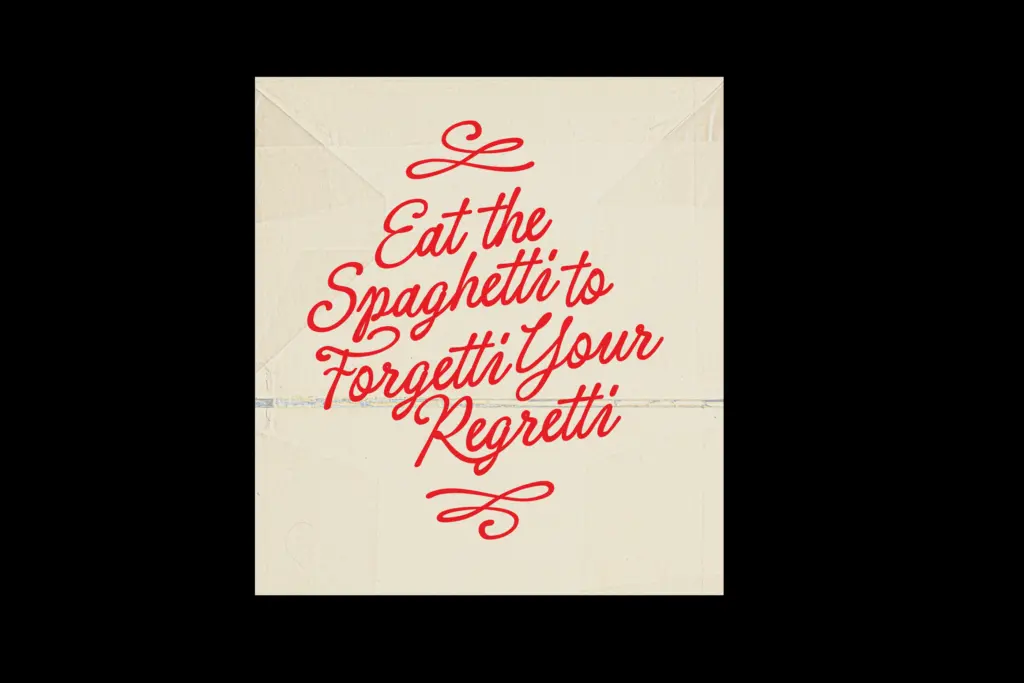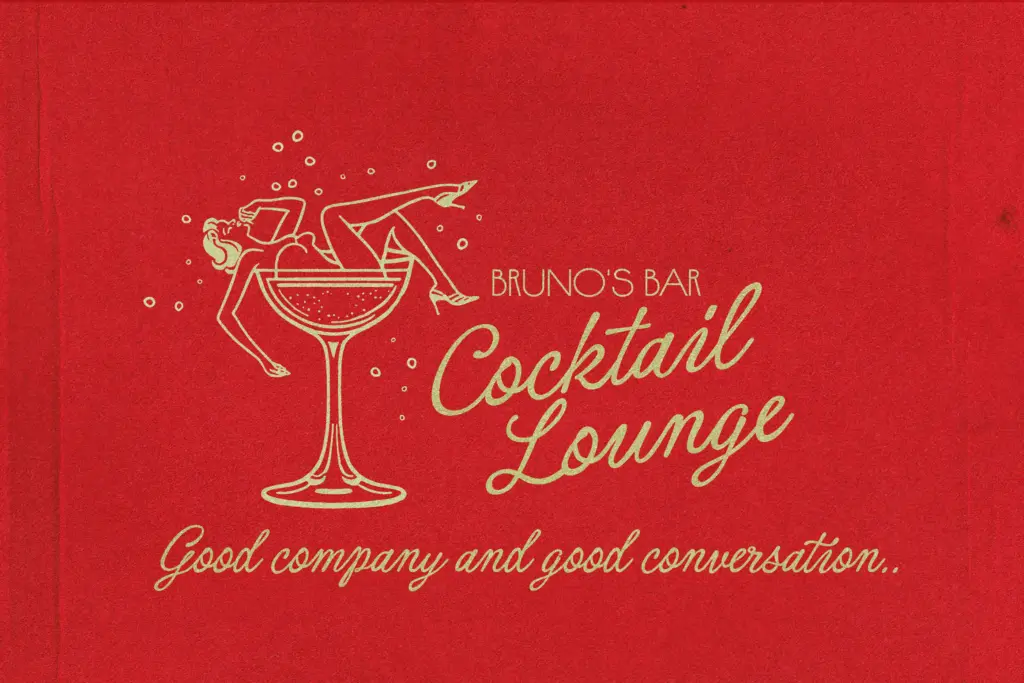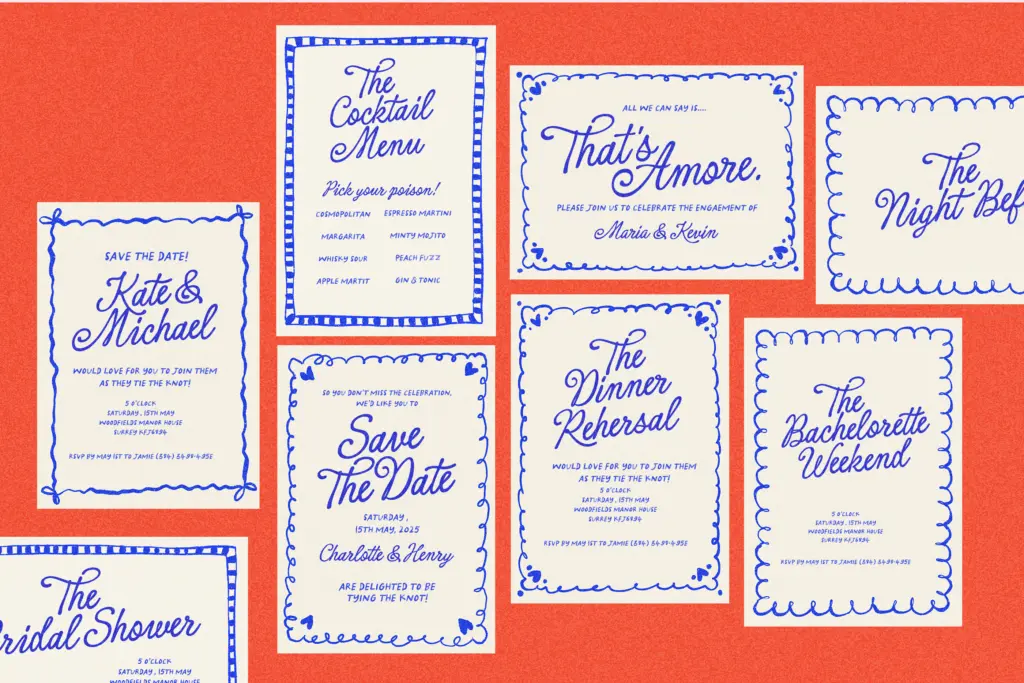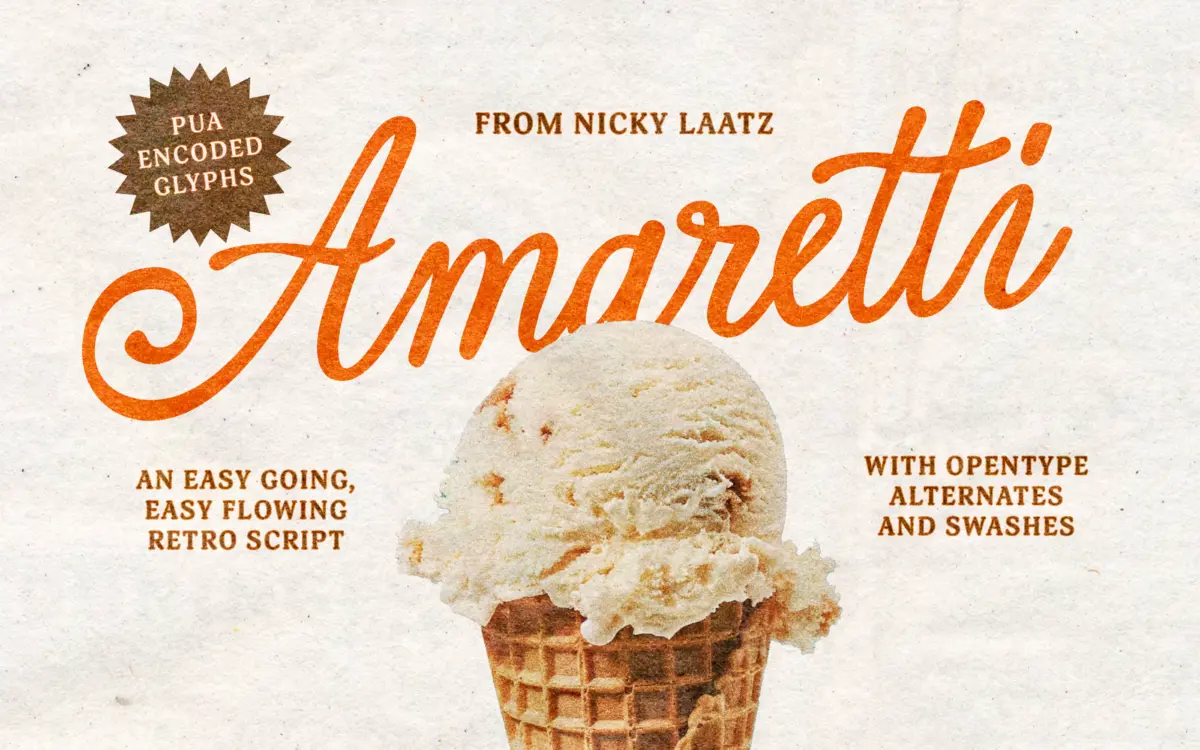
Amaretti draws on the hand-lettered signage and advertising scripts of the 1950s, the kind of lettering you’d see painted on a diner window or a soda label. It’s a calligraphic script with a fairly consistent brush-like stroke, moderate contrast, and a lot of swing in the connections between letters. The curves are generous rather than tight, giving the whole thing a rounded, confident bounce rather than a formal or restrained one.
What separates it from a generic retro script is the willingness to let flourishes run. Ascenders and descenders swirl out past the baseline and x-height with real commitment, and the terminals often finish with a small flick rather than a clean cut. That’s a deliberate choice: it reads as friendly and a bit exuberant rather than elegant. If you’re after quiet sophistication, this isn’t that script. If you want something that feels like it’s smiling at you, this is closer to the mark.
The family comes in three weights, each with a matching oblique, which is more range than most scripts offer. That alone makes it more usable than a single-weight novelty script — you can set a light version for body-adjacent use and a bolder one for a headline without leaving the family.
OpenType support includes alternates, ligatures and swashes, and there’s enough of it to matter in practice: repeated letters in a word won’t look identical if you enable alternates, and swash caps give you a fancier option for the first letter of a name or word. Amaretti is also PUA-encoded, so those extras are reachable in apps like Canva that don’t support full OpenType feature panels — worth knowing if your workflow doesn’t run through Illustrator or InDesign.
Language support is English only, with some common single diacritics included, so don’t expect broad multilingual coverage out of the box. As with most scripts of this density, it’s built for short bursts of text — a name, a word, a line — not paragraphs. Push it into a sentence and the flourishes start to collide and the rhythm gets busy.
This is a font for projects that want warmth and a bit of theatre: greeting cards, wedding stationery headers, packaging that’s leaning into nostalgia, matchbook and label design, logo lockups for bakeries, cafés and similar hospitality brands. The vintage-advertising feel makes it a natural fit for anything trying to evoke mid-century Americana without going full novelty-font territory.
It’s less suited to anything that needs to feel restrained or contemporary — the swirls work against a minimal or corporate brief. Keep it to short lines, lean on the alternates to avoid visible letter repetition, and give it space; the flourishes need room to breathe or the whole effect collapses into visual noise.
- Three weights plus matching obliques give real flexibility rarely found in scripts this decorative
- Generous alternates and swashes prevent repeated letters from looking copy-pasted
- PUA encoding makes the extra characters usable directly in Canva
- English-only language support with limited diacritics restricts multilingual use
- Dense flourishes make it unreadable past a word or short phrase, so it's not built for body text
Amaretti delivers a convincing vintage-signage script with genuine range across three weights and obliques, plus swash and alternate support that keeps repeated letters from looking mechanical. It's built for short, punchy text rather than paragraphs, and its exuberance limits it to briefs that actually want warmth and nostalgia. A strong, well-made choice for the right project, not a general-purpose script.